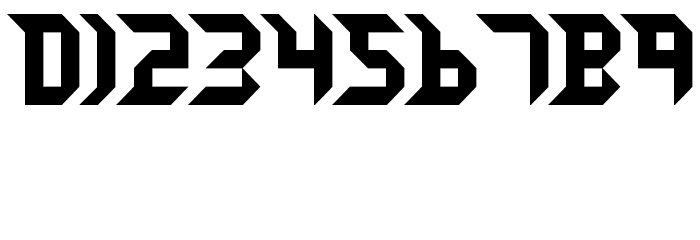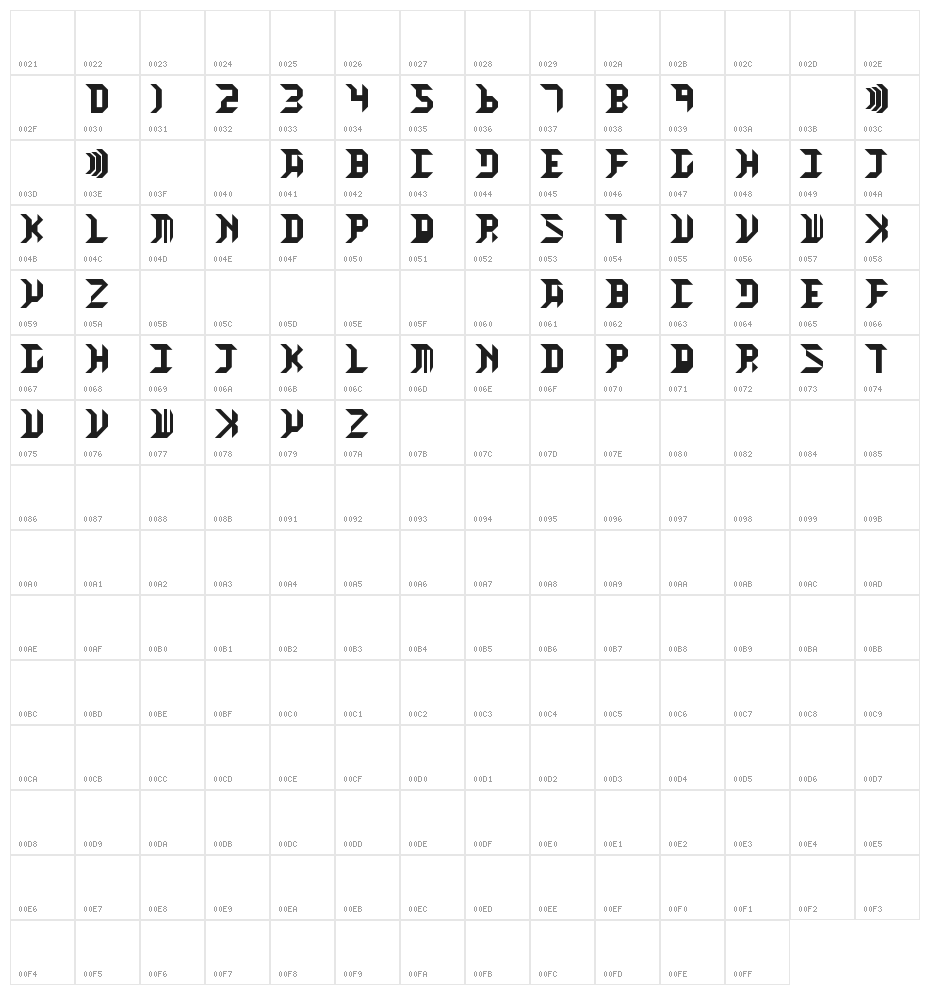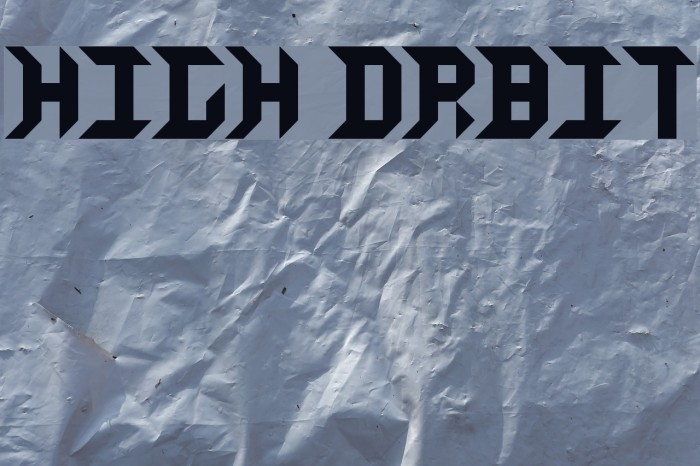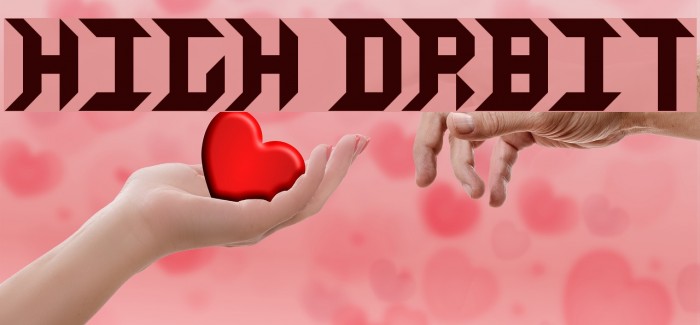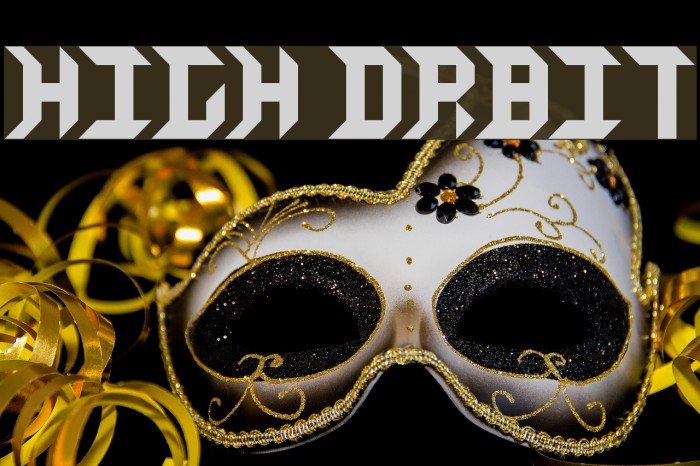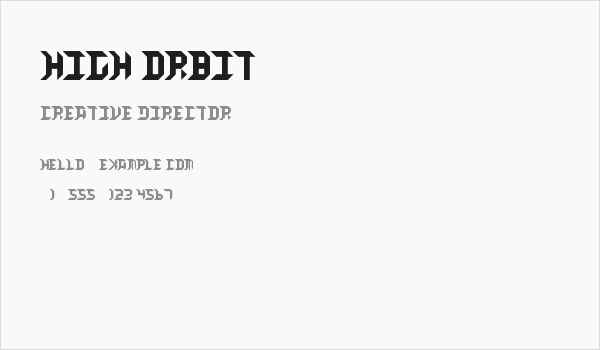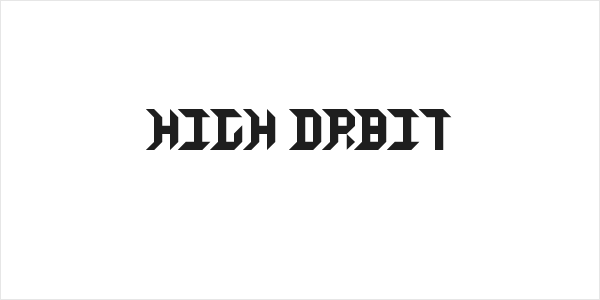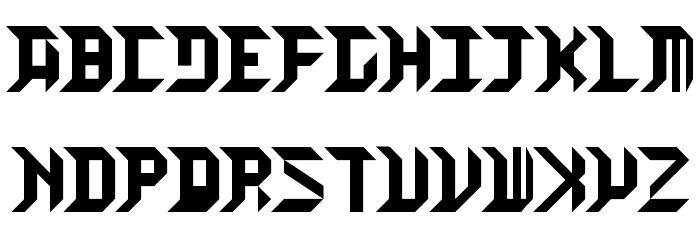
HIGH ORBIT Font
HIGH ORBIT Description
This font features a bold and futuristic design, characterized by sharp angles and geometric shapes that create a dynamic and aggressive appearance. The uppercase letters are particularly striking, with each character exhibiting a unique angular cut that adds to the overall edgy aesthetic. The numbers follow a similar style, maintaining consistency across the character set. The font's design is reminiscent of sci-fi themes, making it ideal for projects that require a modern and technological feel. The boldness of the strokes ensures high visibility, making it suitable for headlines and display purposes.
| Proposed Projects | Perfect for sci-fi movie posters, video game titles, technology branding, and futuristic event flyers. |